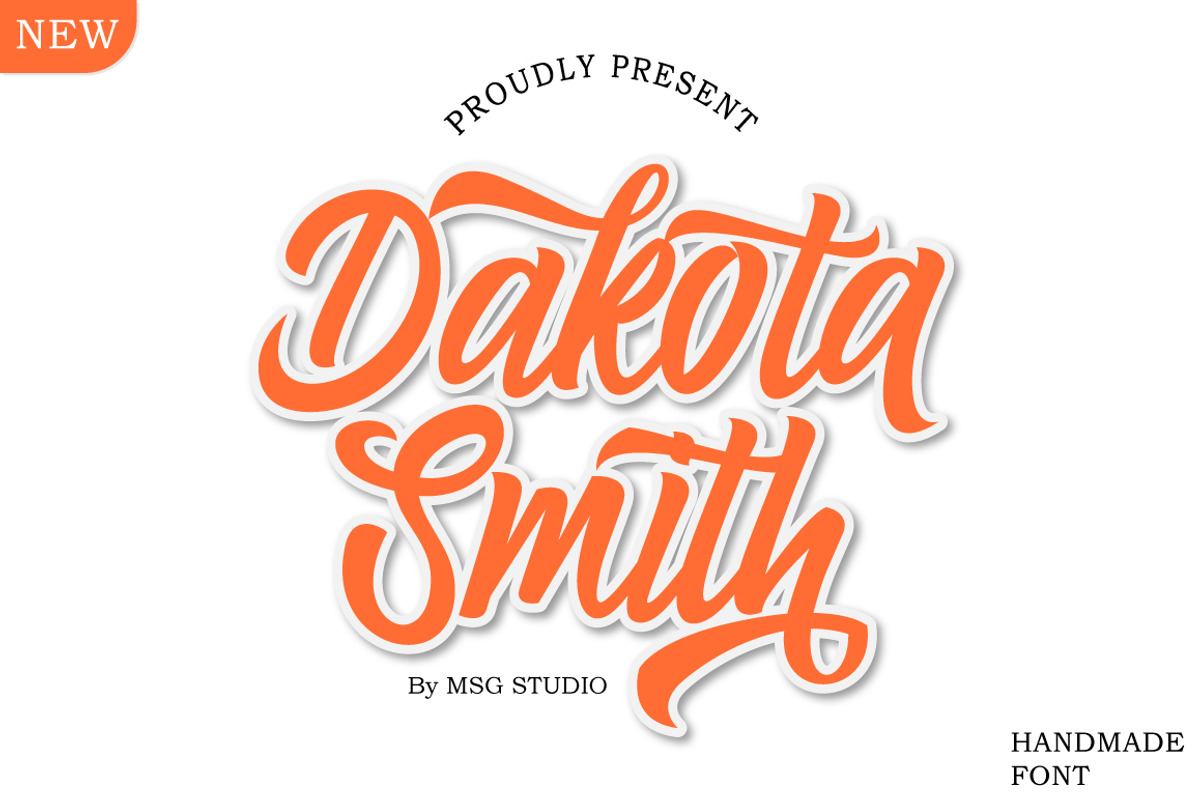
Dakota Smith Free Download
Dakota Smith Font Free Download is a bold and stylish handwritten typeface that blends modern script charm with a confident, personal flair. With its fluid strokes and natural vibe, Dakota Smith is perfect for signature logos, personal branding, wedding invitations, fashion lookbooks, and Instagram posts that need a classy yet relaxed touch.
Designed to feel like authentic handwriting with a touch of elegance, Dakota Smith Font Free Download features smooth curves and organic movement, making it ideal for projects that want to convey personality, creativity, and professionalism all at once.